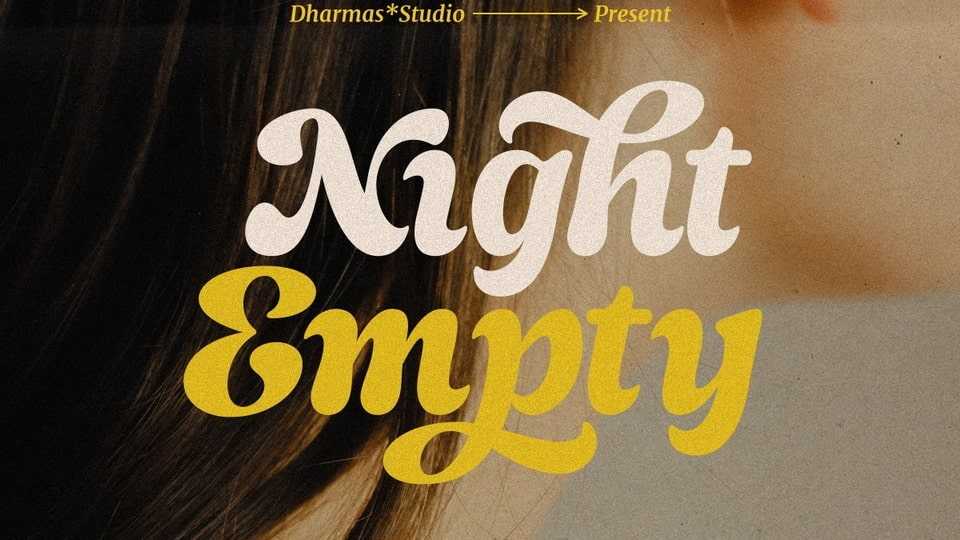
Download Night Empty font, an italic seventies retro typeface that has both vintage and soft bold italic. Night Empty font has smooth curves and clean lines to make your project more nostalgic feels.